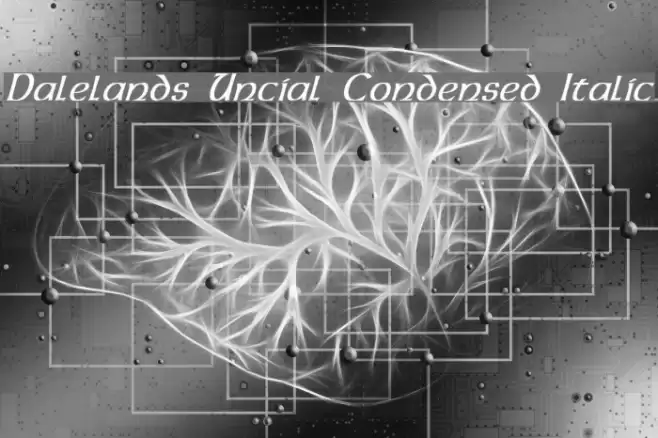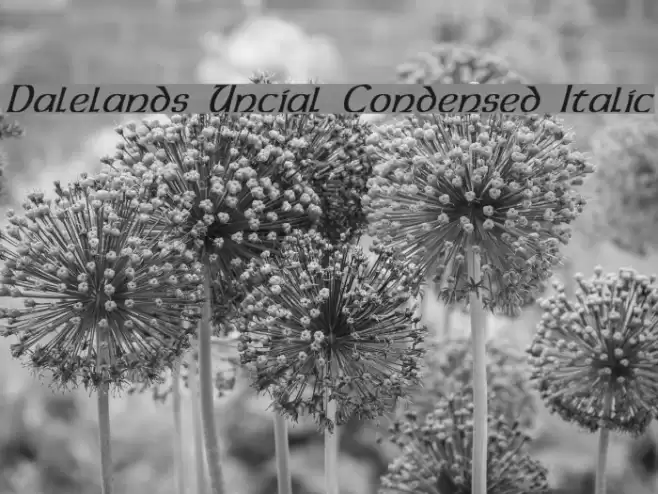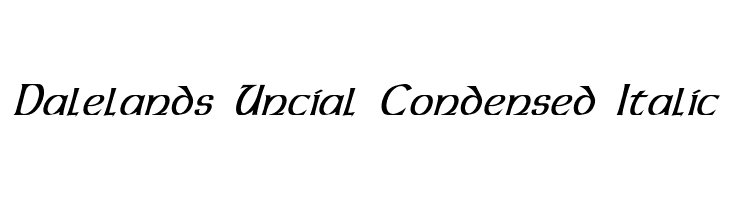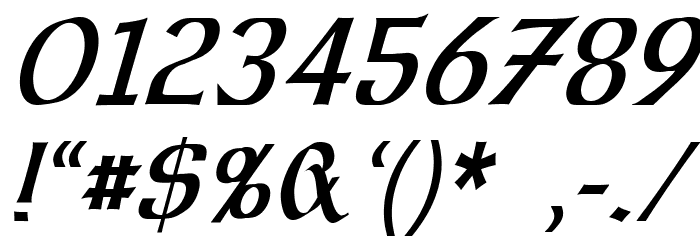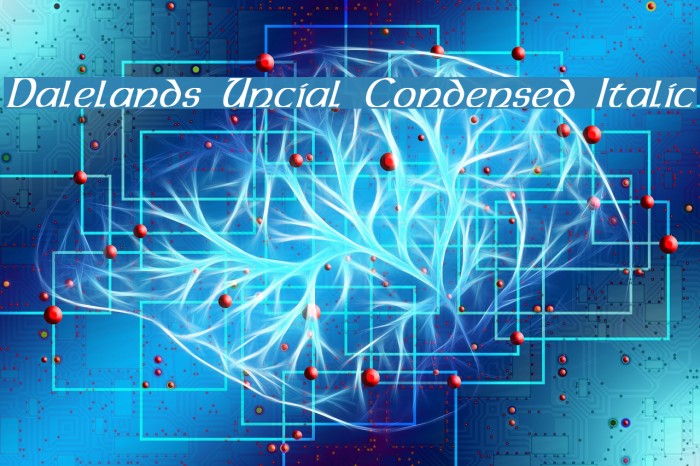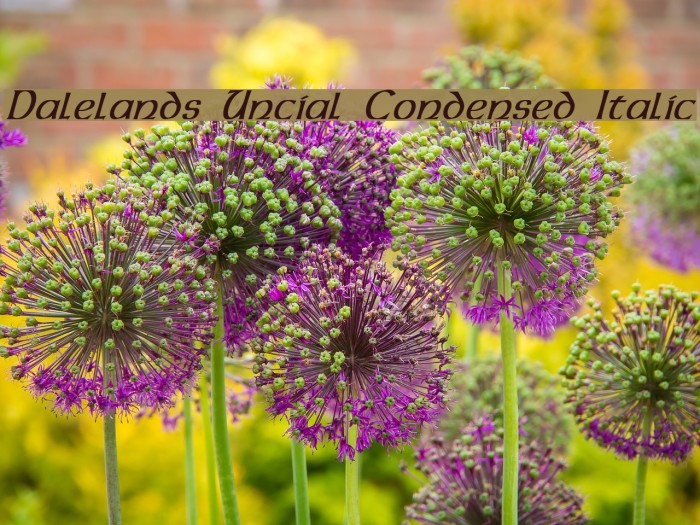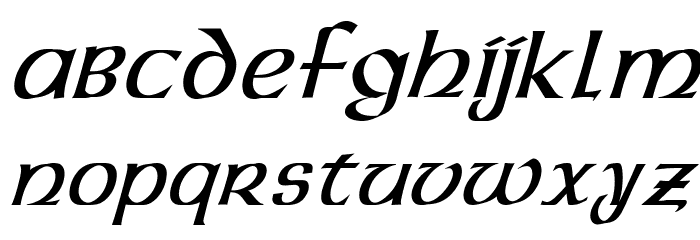
Dalelands Uncial Condensed Italic Font
Dalelands Uncial Condensed Italic Description
This font features a unique blend of historical and modern elements, characterized by its italicized and condensed form. The letters exhibit a distinct uncial style, reminiscent of medieval script, yet maintain a contemporary flair. The strokes are elegantly curved, with a slight slant that adds dynamism and movement to the text. The uppercase and lowercase letters are well-proportioned, with a consistent flow that enhances readability. The numerals and special characters are crafted with the same attention to detail, ensuring a cohesive appearance across all elements. This font's condensed nature allows for efficient use of space, making it suitable for various design applications.
A condensed, italicized font with uncial influences, blending historical and modern styles.
- Proposed Projects: Ideal for projects requiring a historical or fantasy theme, such as book covers, posters, or game designs.
- Overall Style: Vintage